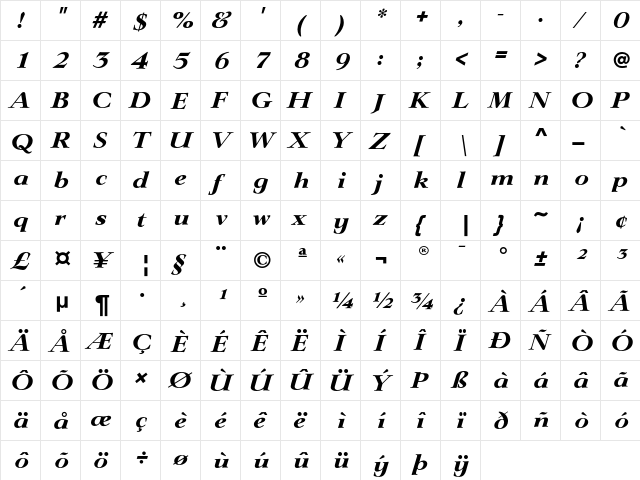
LingwoodEF BoldItalic
Design Context for LingwoodEF Typeface
LingwoodEF taps into classic Western woodtype traditions — bold, characterful, and impossible to ignore. Its italic angle brings a sense of urgency and motion to the letterforms. The heavy weight commands attention and anchors typographic hierarchies.
Perfect for barbecue restaurants, country music branding, vintage poster design, and rustic packaging.
Font Pairing: Combine LingwoodEF with a simple slab or neutral sans — period-accurate companions reinforce the vintage feel without competing for attention.
Pro Tip: Pair LingwoodEF with aged textures or distressed backgrounds to amplify its vintage personality.